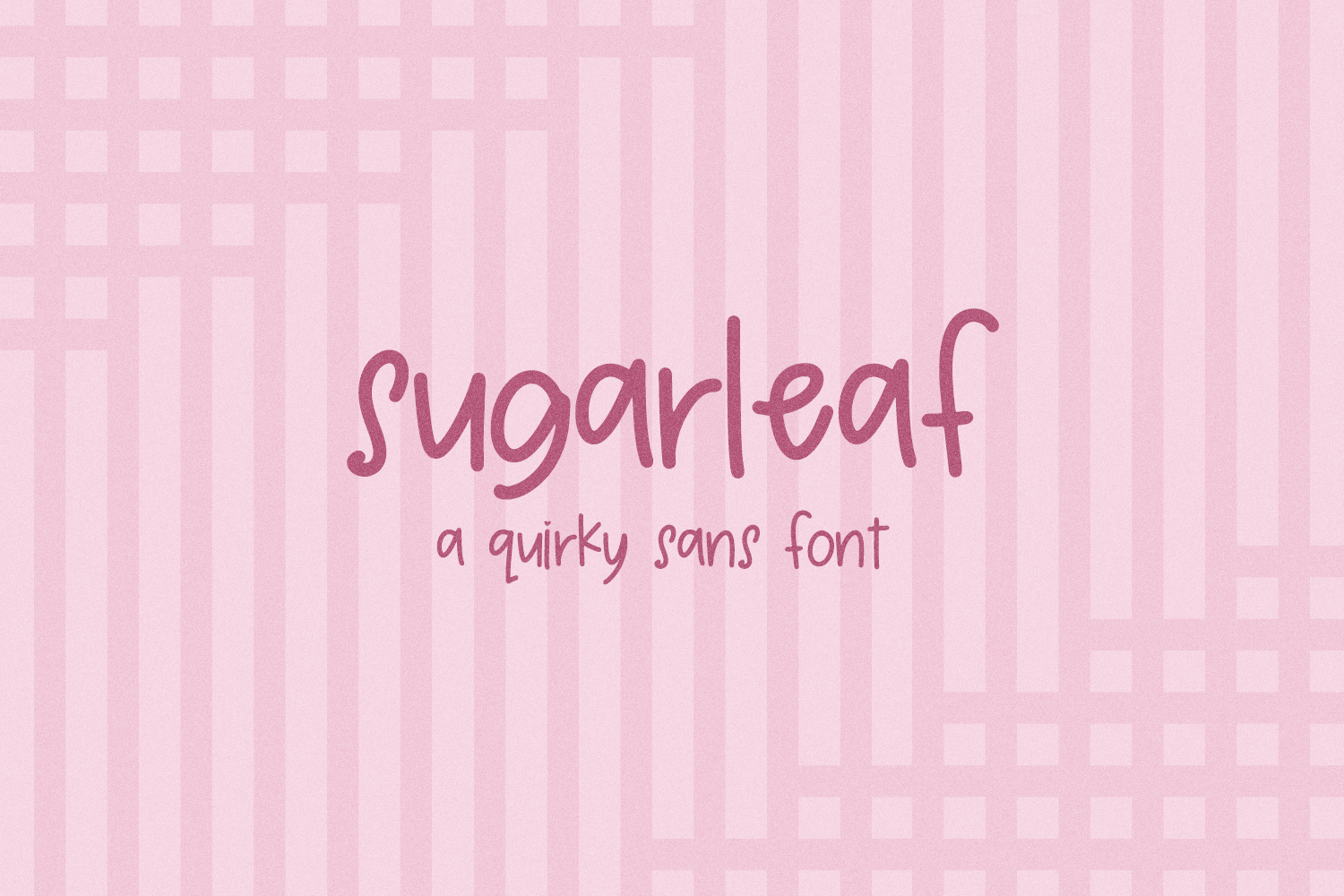
Sugarleaf Sans Font
Sugarleaf Sans is a hand lettered sans font. This cute & quirky sans font is perfect for logos & branding, greeting cards, painted banners, digital planners, note-taking apps, Canva, Cricut projects, Silhouette projects, designing SVG files, laser cutting projects, & more. The lowercase i & j characters also include alternates dotted with an adorable heart.
Sugarleaf includes:
- 2 alternates, i & j
- Western European language support - English, French, Spanish, Portuguese (Brazil), Portuguese (Portugal), Italian, German (Germany), German (Austria), Dutch, Danish, Swedish, Norwegian (Bokmål and Nynorsk), Finnish, Icelandic, Irish, Welsh